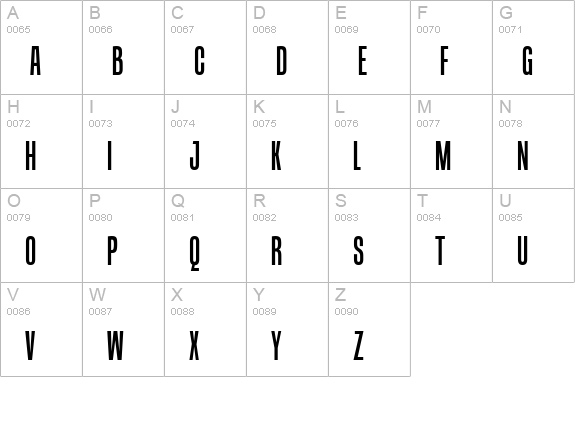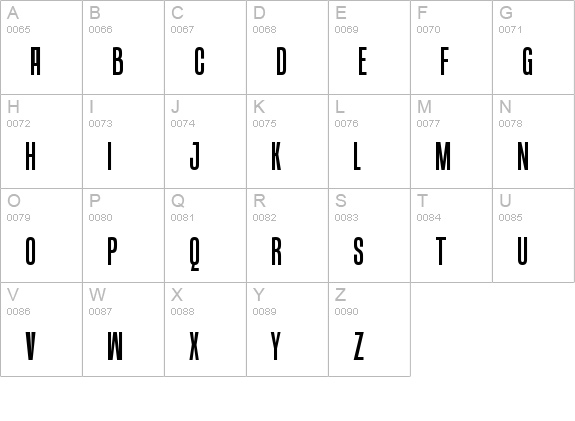
Tandelle font is a modern and elegant typeface that exudes sophistication and style. Its sleek lines and graceful curves make it a perfect choice for a wide range of design projects, from branding to editorial design. The versatility of Tandelle font allows it to be used in both digital and print applications, ensuring a seamless and polished look across all mediums. One of the best features of Tandelle font is that it is available for free download at FontsMarket.com. This means that designers and creatives can easily access this beautiful font without any cost, making it a valuable asset for any project. Whether you are working on a personal project or a client's design, Tandelle font is sure to elevate your work to the next level with its timeless appeal and refined aesthetic. Embrace the beauty and versatility of Tandelle font today by downloading it for free at FontsMarket.com and unlock a world of design possibilities at your fingertips.